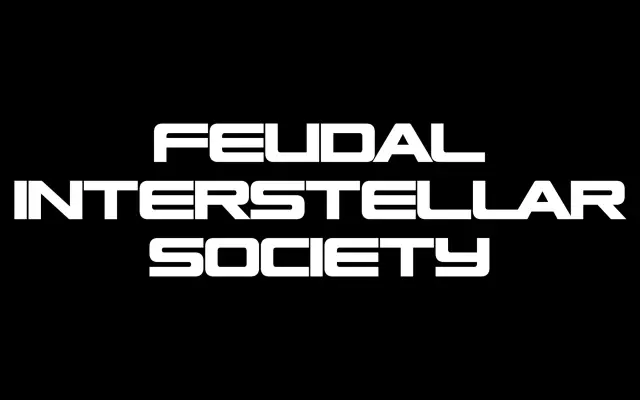
Leto
A modular geometric sans drawn from motorsport logos and industrial lettering, built around a very high x-height and compact proportions.
Designed by Eliott Grunewald with development and mastering by OTT, Leto takes its formal cues from the lettering found on racing vehicles, printing machinery and science fiction production design. Its very low overall structure produces an exceptionally high x-height, giving text a streamlined, compressed quality suited to technical or fast-paced contexts. The broad Latin Extended character set supports well over a hundred languages across Europe and Africa.
Leto is built on a modular, geometric structure with a very high x-height and low overall proportions, derived from motorsport logos and industrial lettering traditions — hallmarks of geometric sans design.